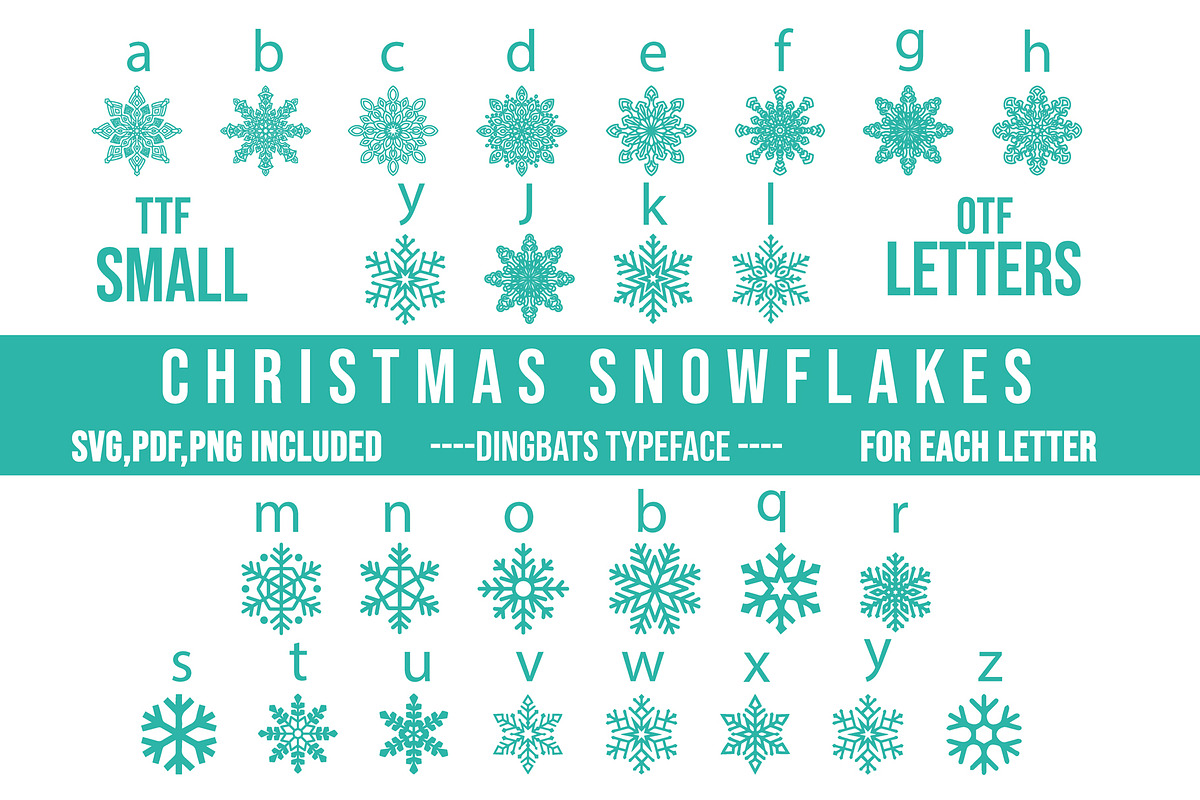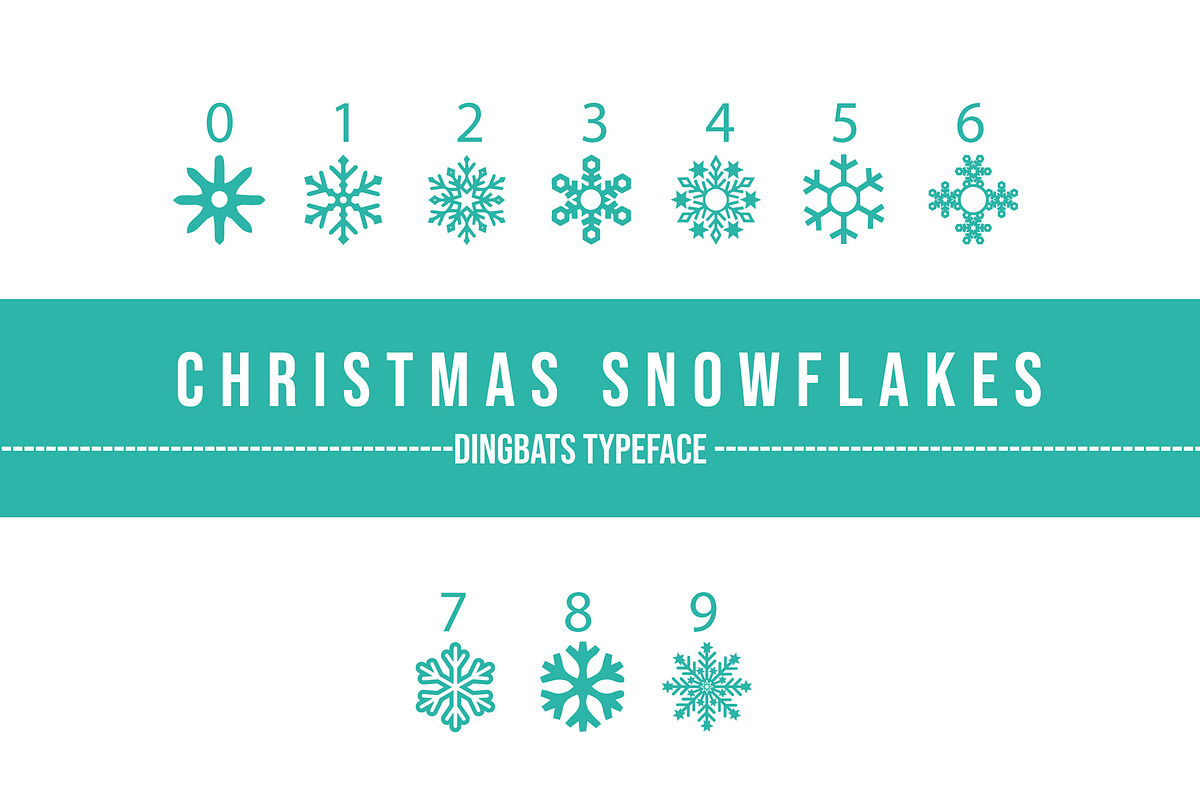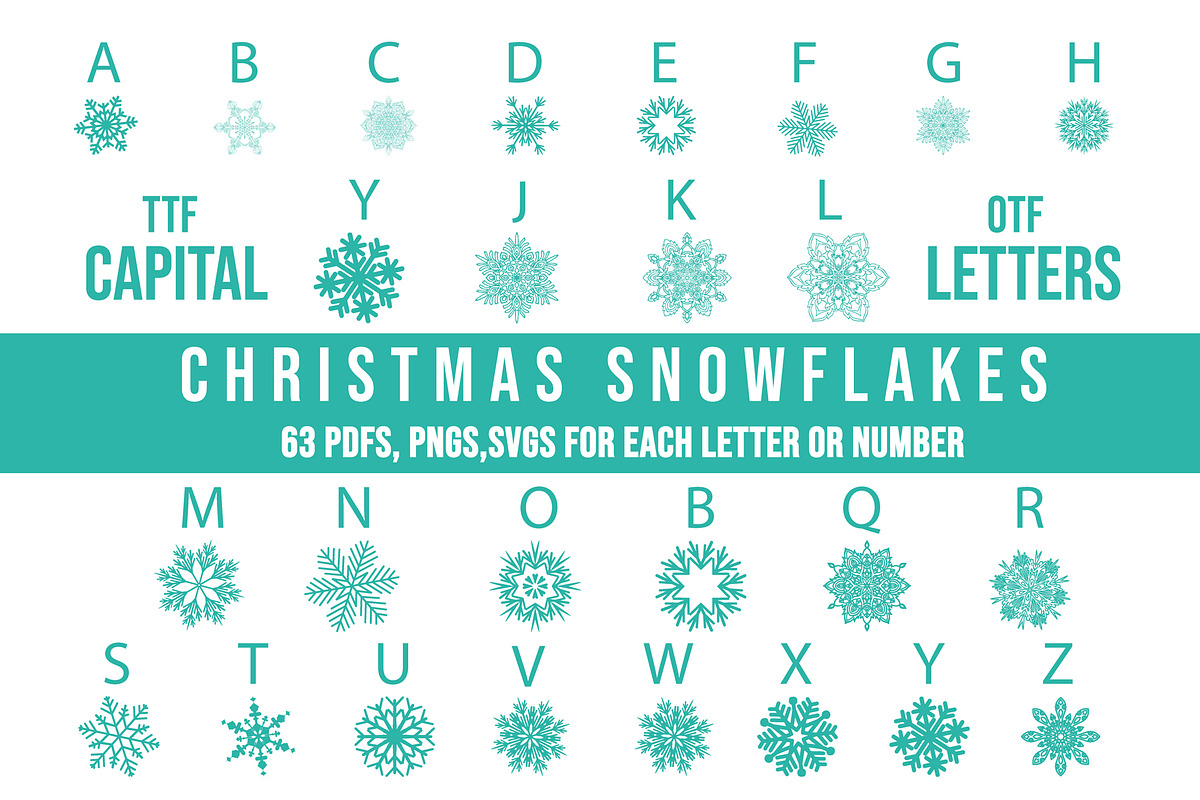
Christmas Snowflakes Dingbats Font
Christmas Snowflakes is a cool and festive dingbats font. Whether you’re using it for crafts, digital design, presentations, or making greeting cards, this font has the potential to become your favorite go-to font, no matter the occasion!